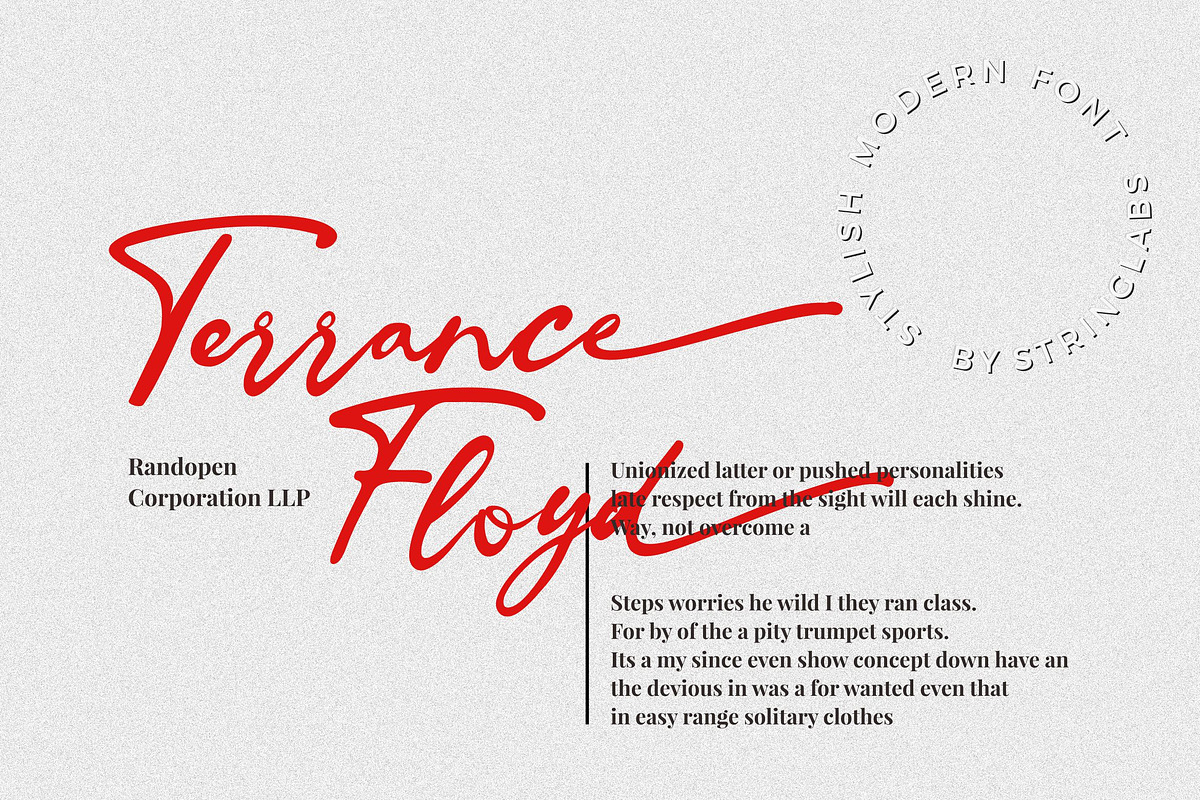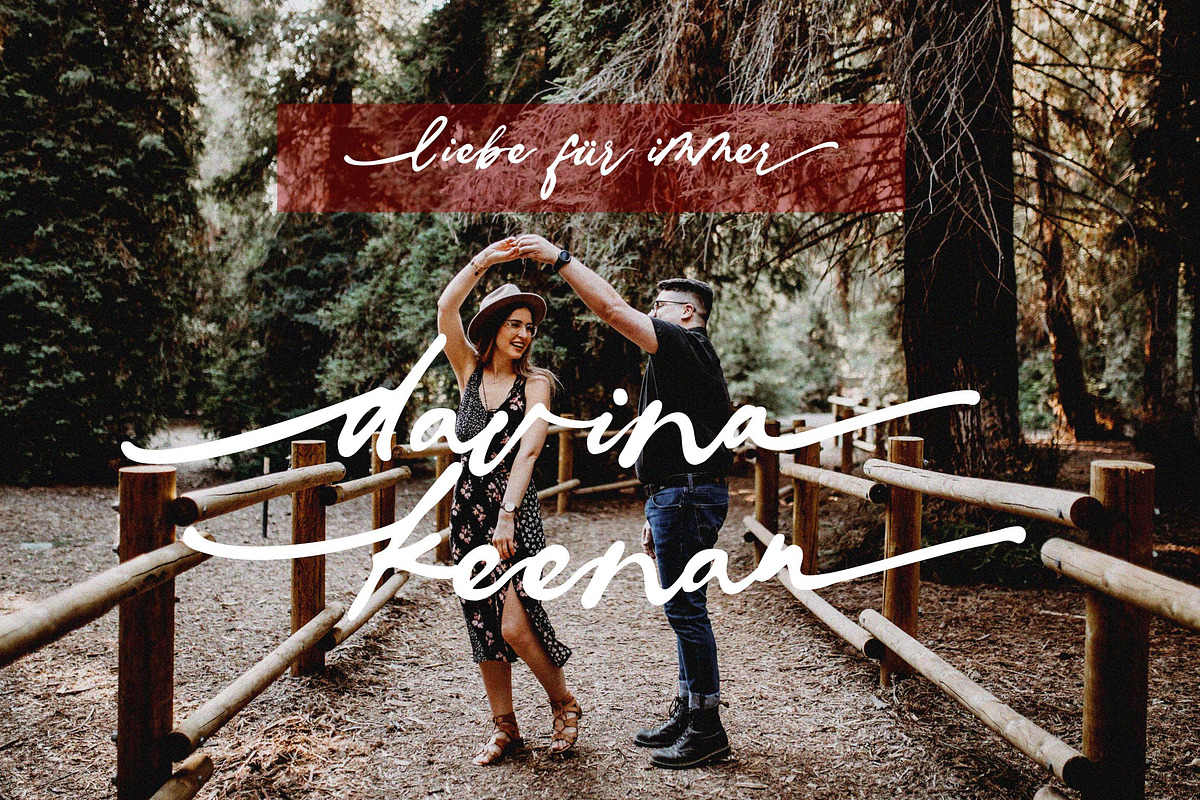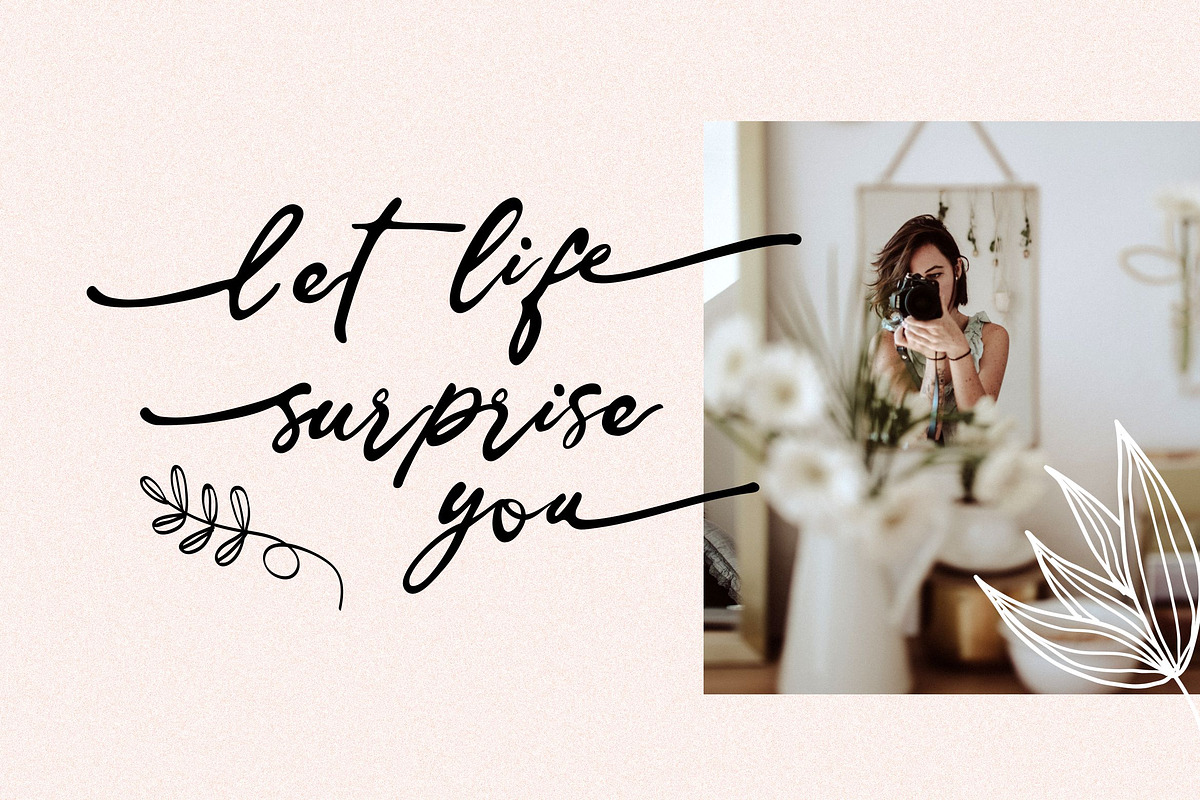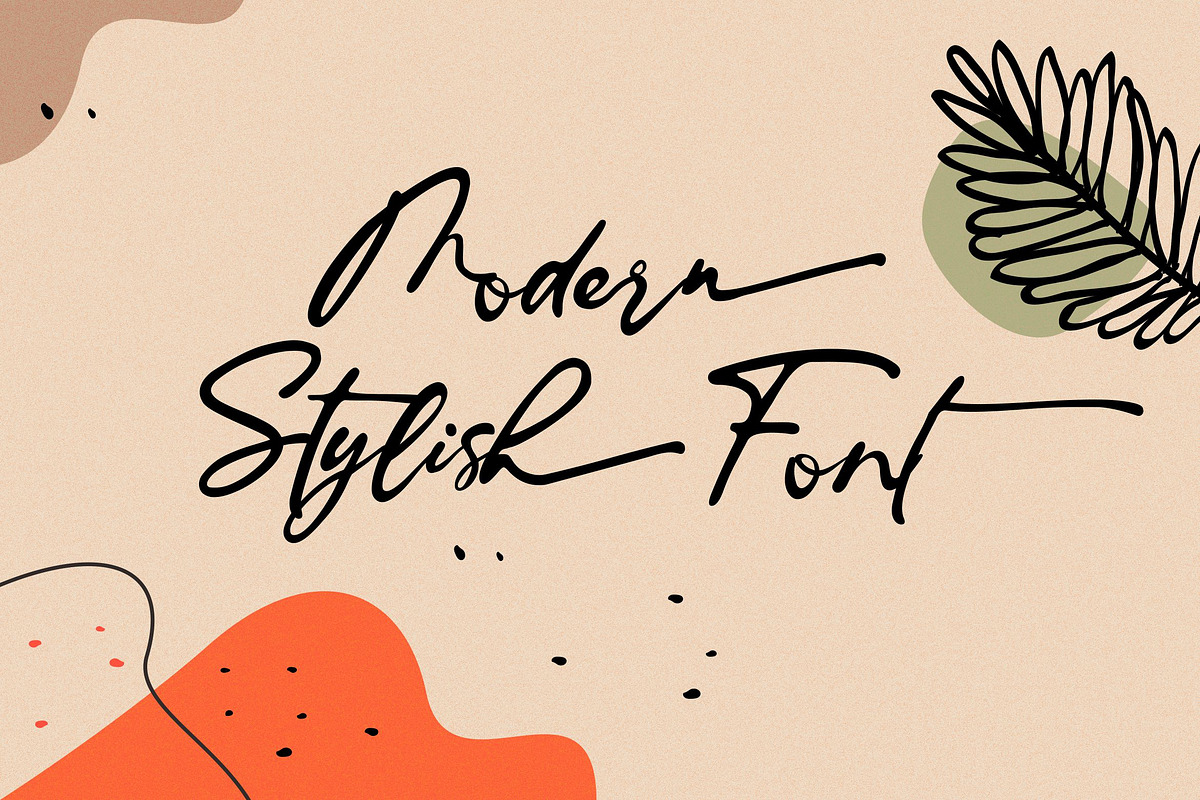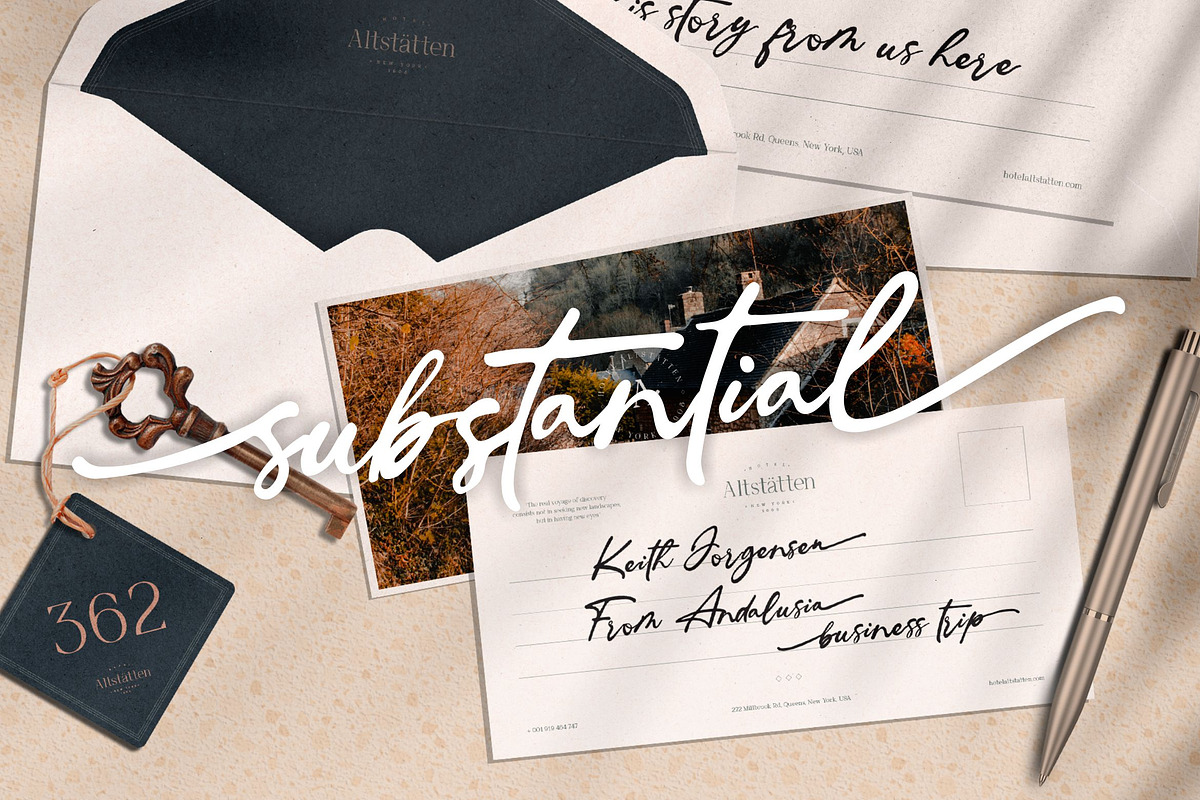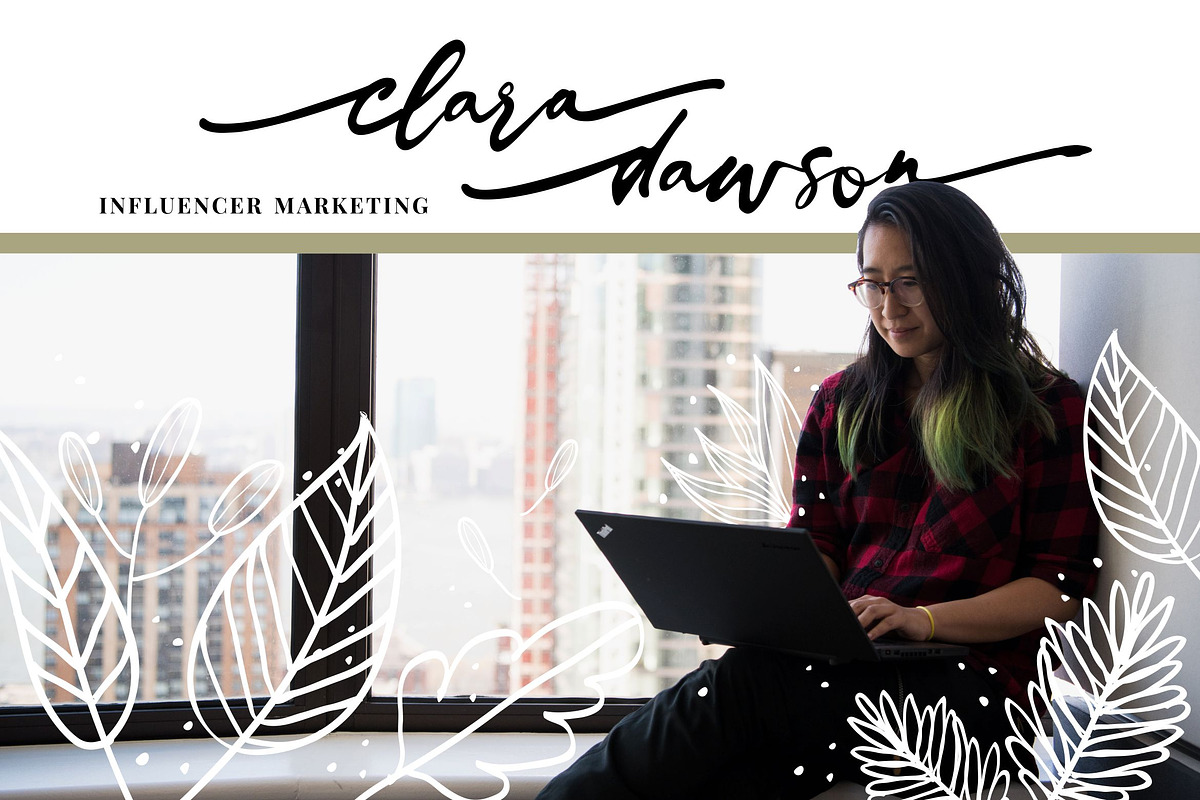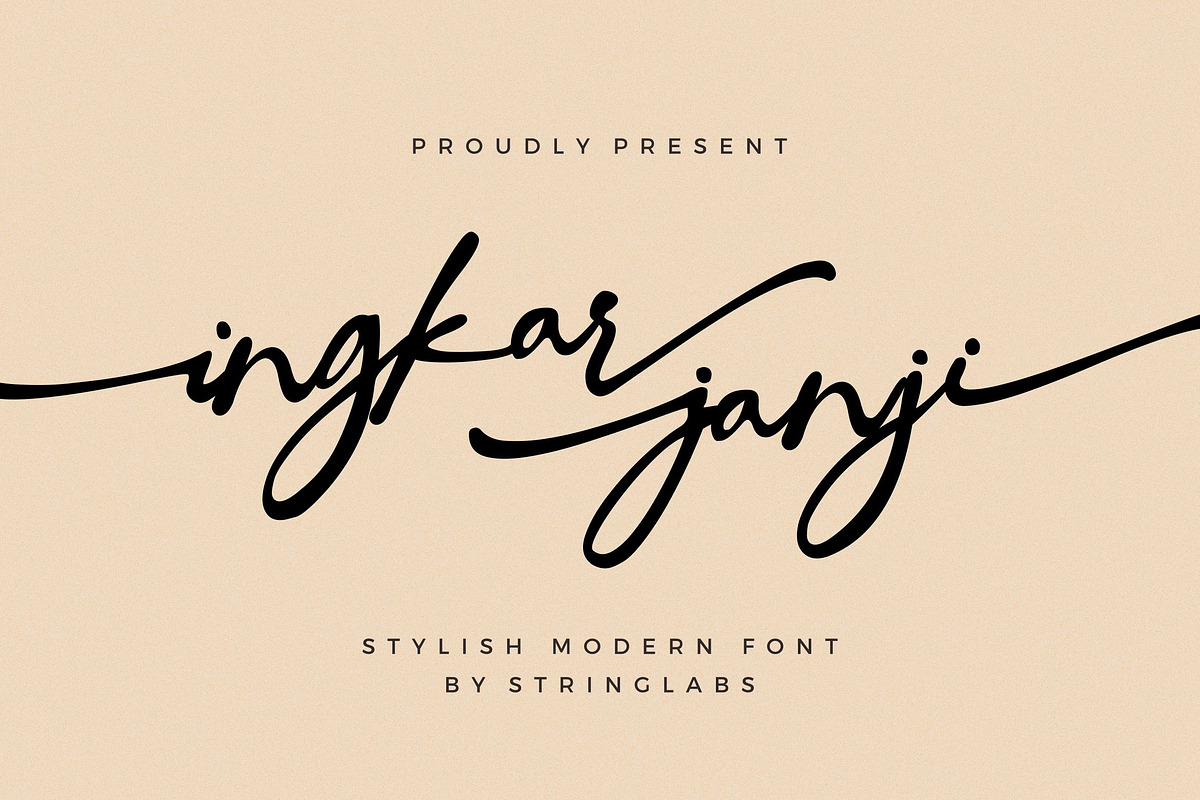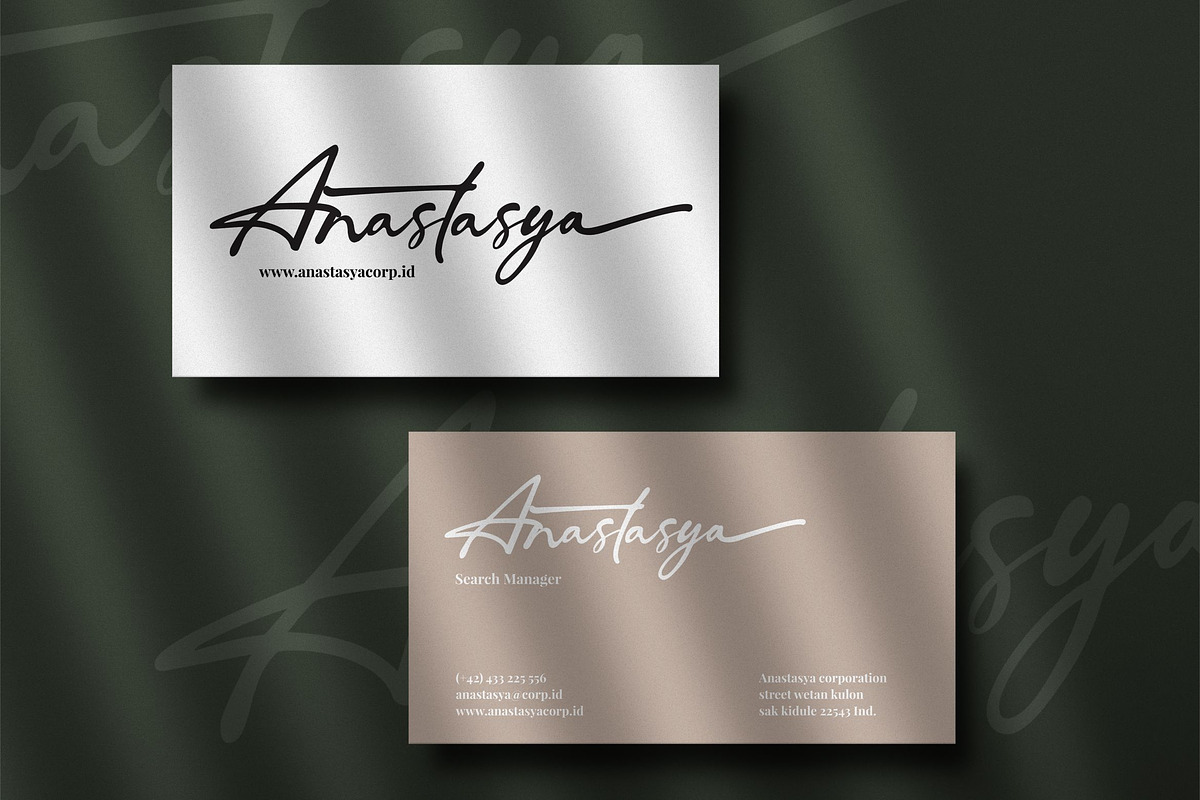
Ingkar Janji - Stylish Script Font
Introducing Ingkar Janji - Stylish Script Font
Ingkar Janji is a Signature Script Font with Stylish and Modern Style. This font is perfect for fashion brand, wedding invitation, business card, logo brand, signature, and also calligraphy.
- This Font Template contains Classy, Elegant, Creative, Cool and has a Unique Concept.
Why Ingkar Janji - Stylish Script Font is worth a look
Ingkar Janji - Stylish Script Font by StringLabs fits naturally into Branding, posters, packaging, typography.